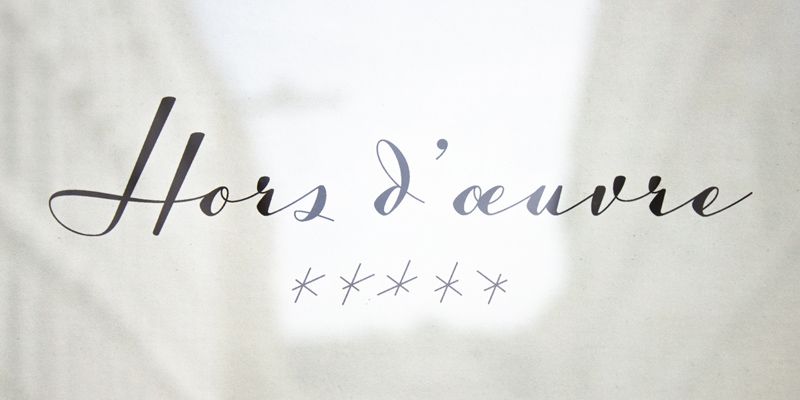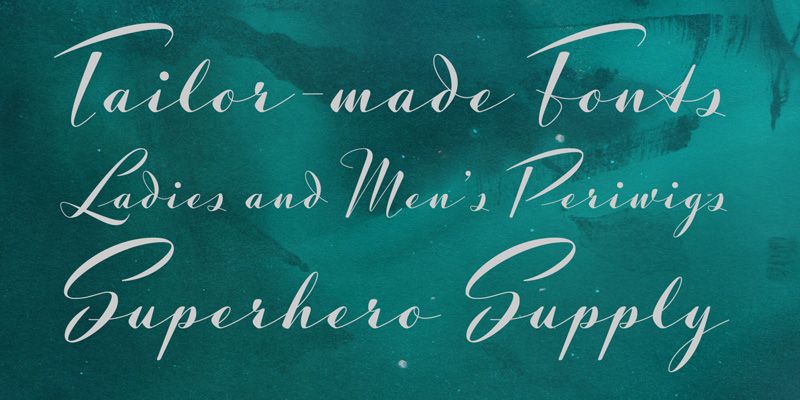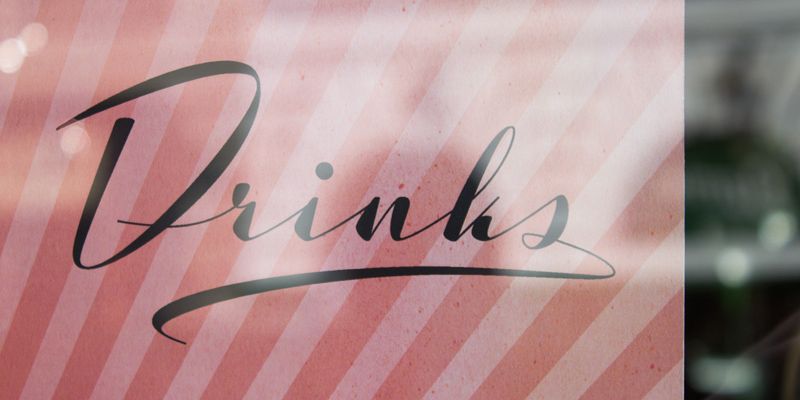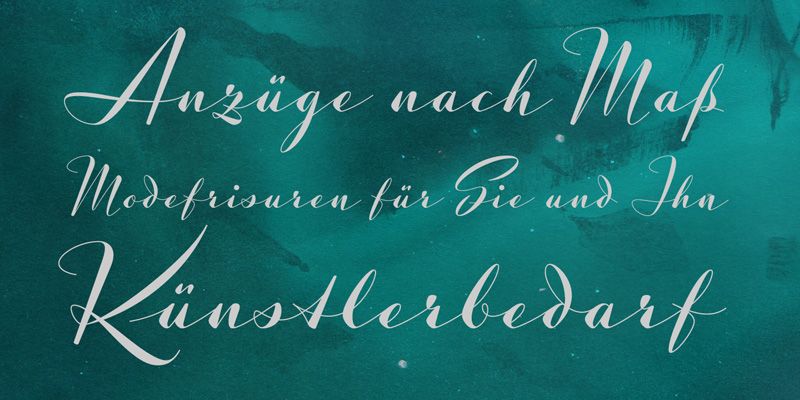
A high-class calligraphic typeface that developed from sketches for a bolder version of Luxus Brut. Each of the elegant curves is drawn in respect of their distinctive origin in mid 1900’s signage lettering.